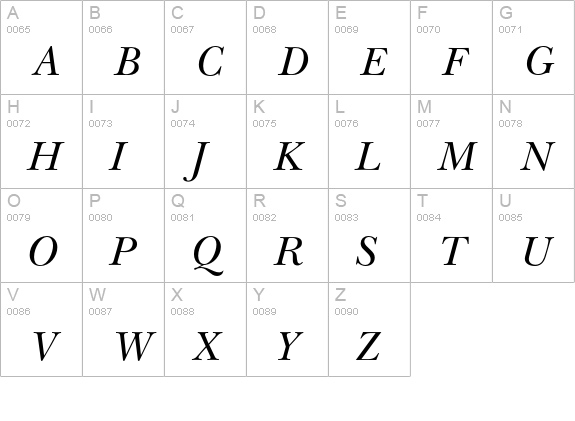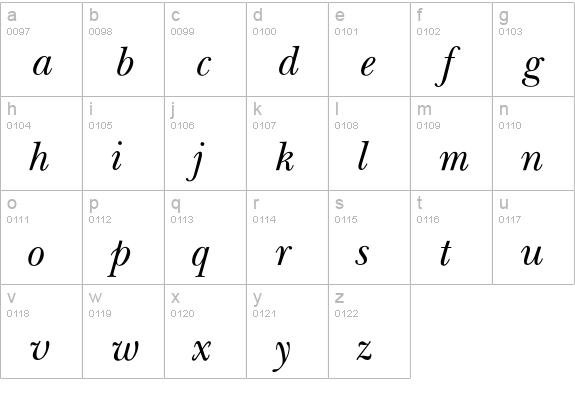
NewBaskervilleItalic Font Details
NewBaskervilleItalic is a sophisticated and elegant typeface that exudes timeless charm and refined beauty. With its delicate slant and graceful curves, this italic font is perfect for adding a touch of sophistication to any design project. The flowing lines and classic proportions of NewBaskervilleItalic make it a versatile choice for a wide range of applications, from branding and editorial design to invitations and packaging. What's even better is that NewBaskervilleItalic is available for free download at FontsMarket.com. Whether you're a designer looking to elevate your projects or a business owner seeking a premium look for your brand, this font is a fantastic choice. Don't miss out on the opportunity to enhance your designs with the effortless elegance of NewBaskervilleItalic – download it today and see the difference it can make!